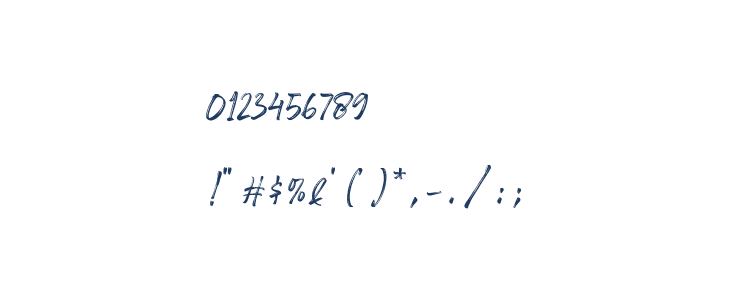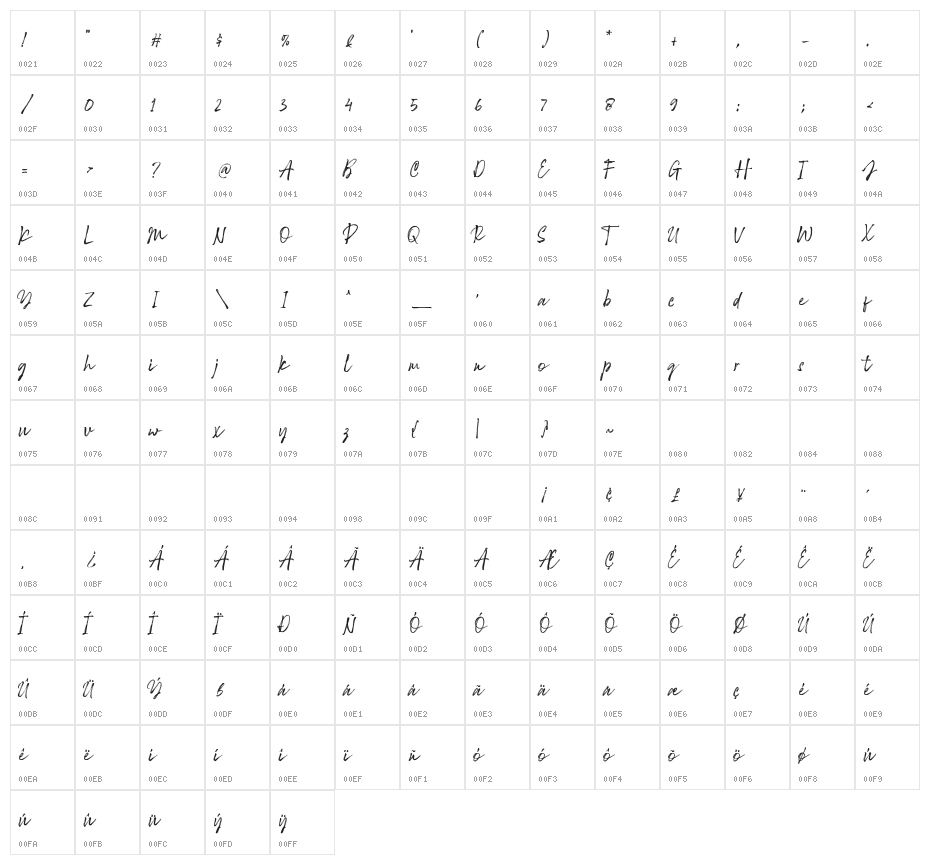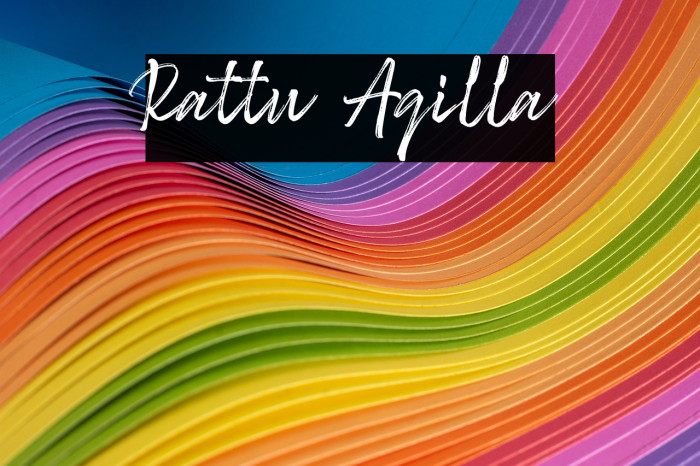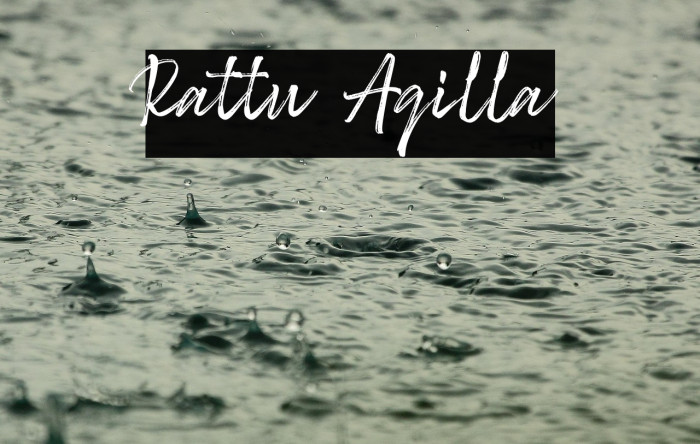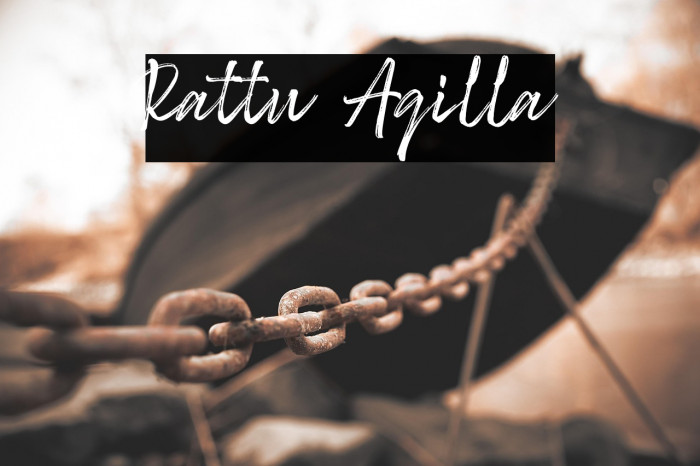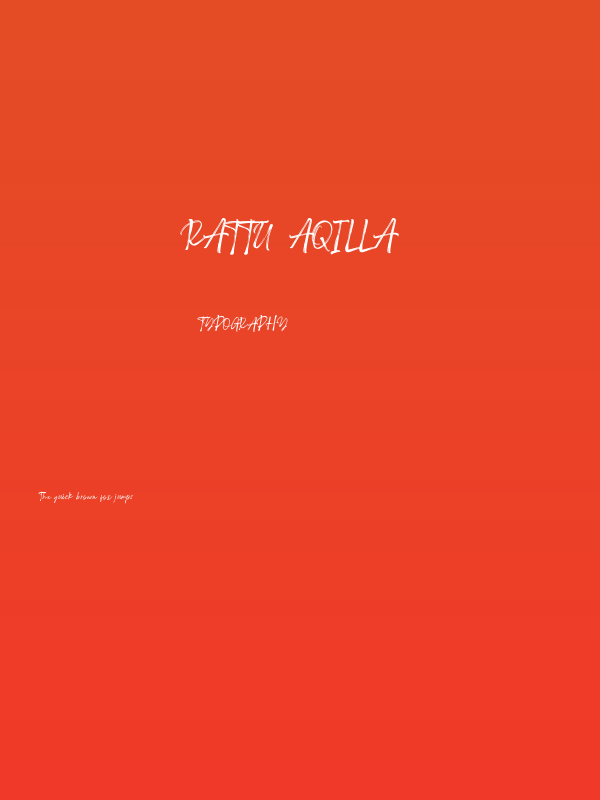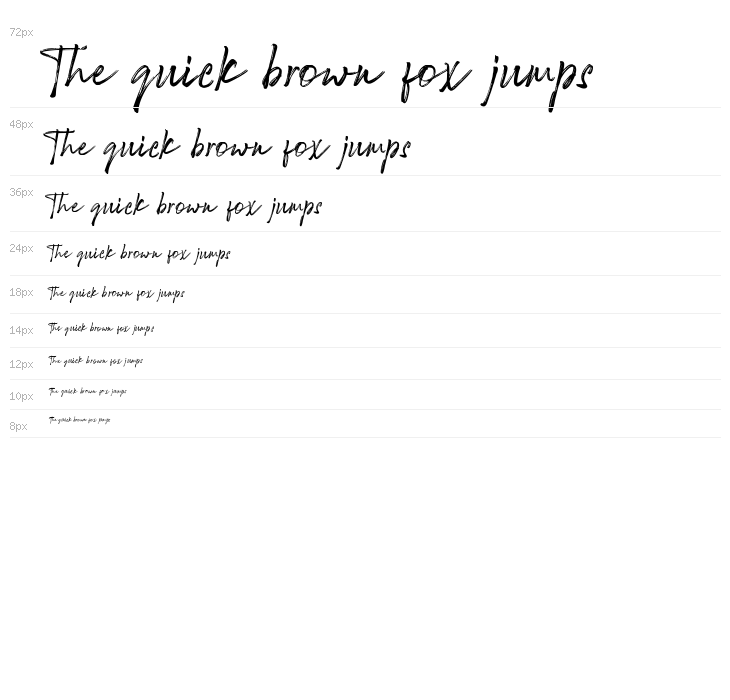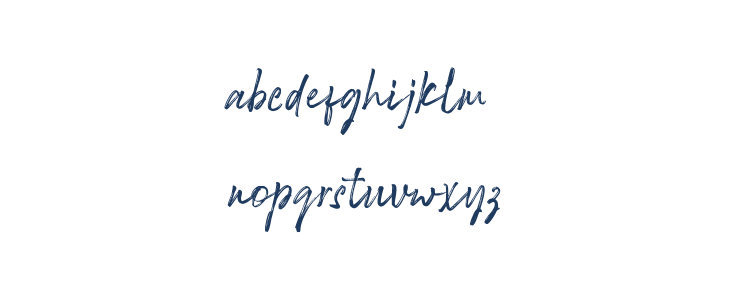
Rattu Aqilla Font
Rattu Aqilla Description
This font features a dynamic and expressive handwritten style, characterized by its fluid strokes and natural flow. The letters are slightly slanted, giving it a casual yet elegant appearance. The uppercase letters are bold and prominent, while the lowercase letters maintain a consistent rhythm, enhancing readability. The numerals and special characters are crafted with the same attention to detail, ensuring a cohesive look across all text. This font's organic feel makes it suitable for projects that require a personal touch.
Overall StyleCasual
Use CaseLogos, Headlines, Invitations
Proposed ProjectsIdeal for invitations, greeting cards, branding, and social media graphics.